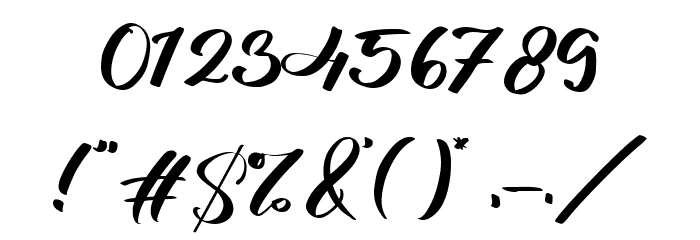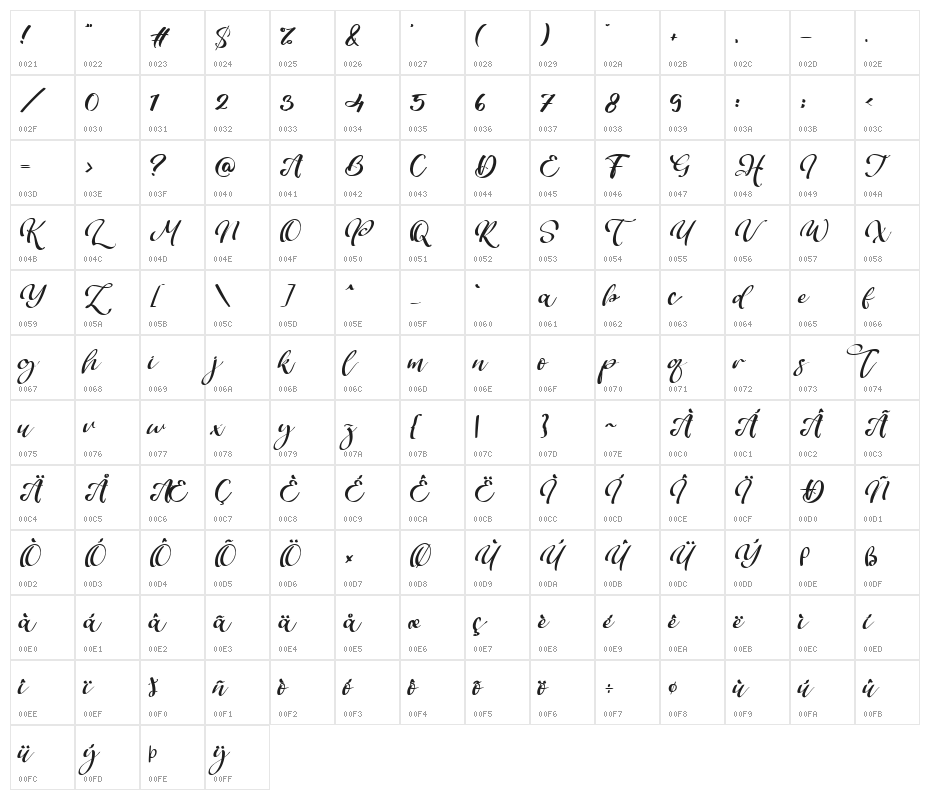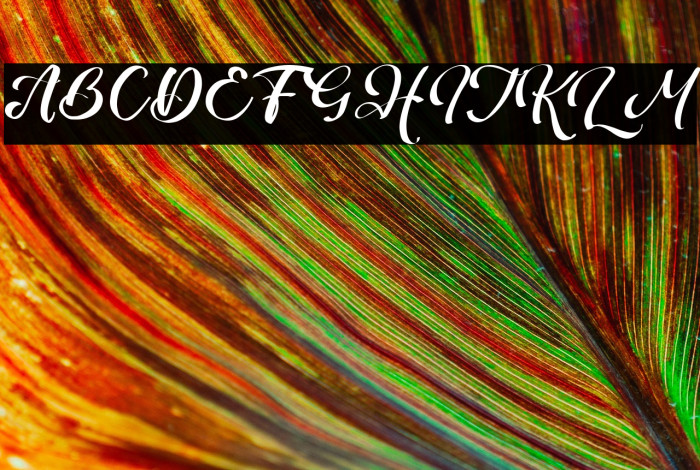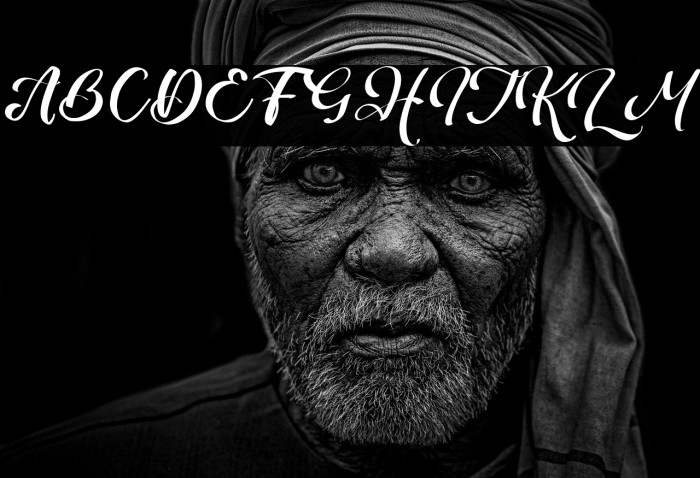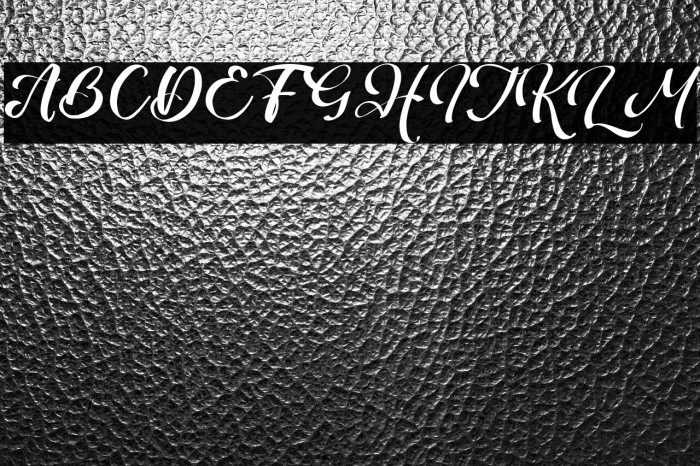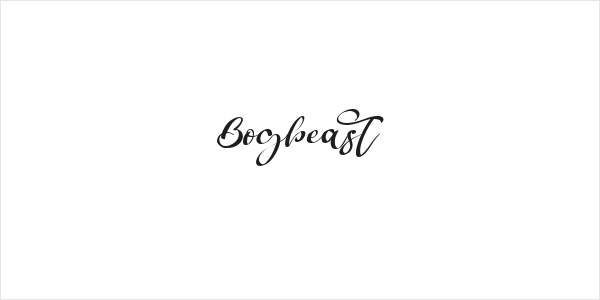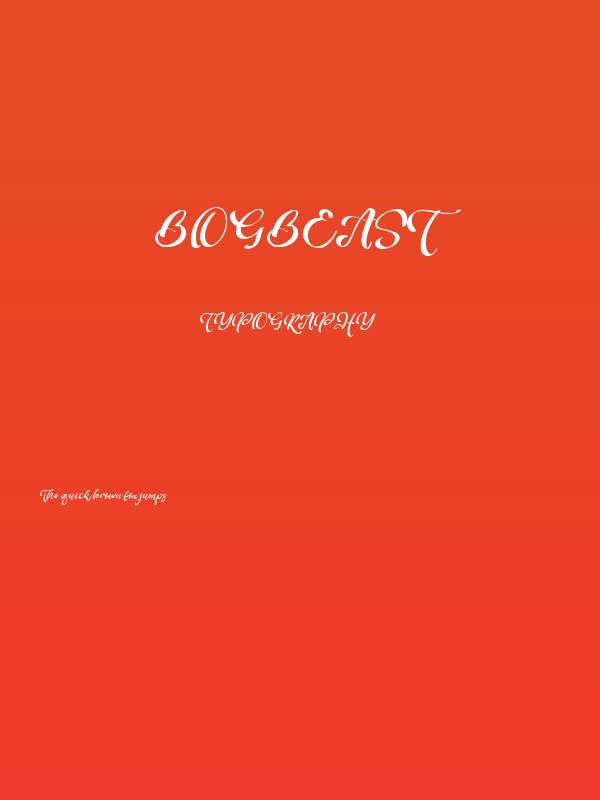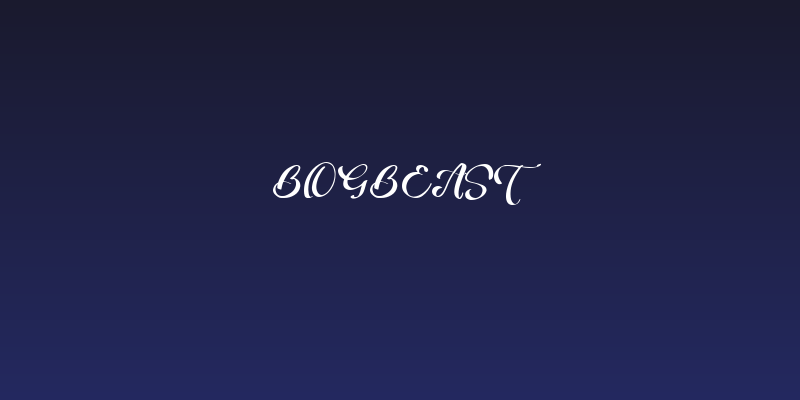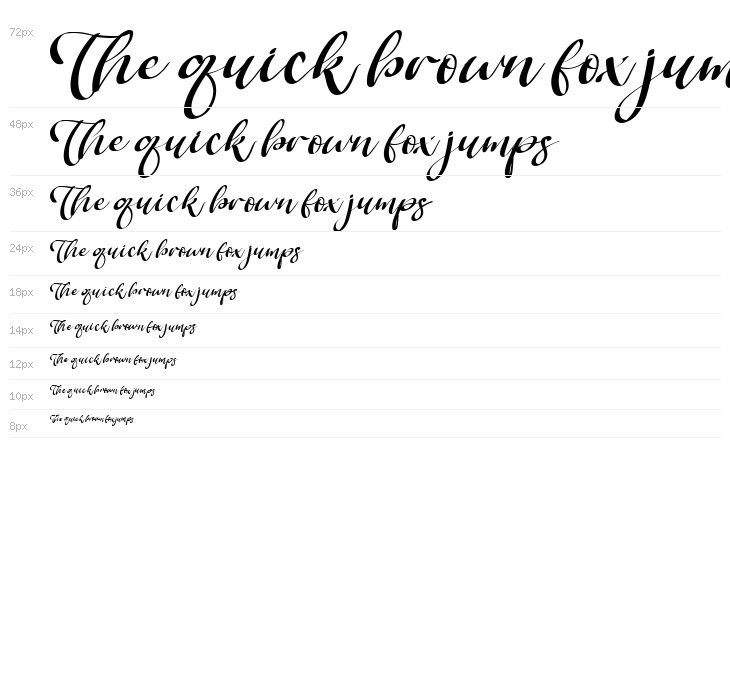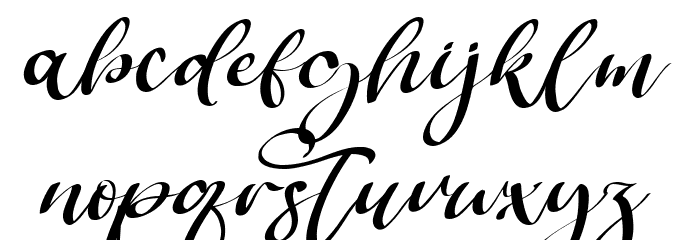
Bogbeast Font
Bogbeast Description
This elegant script font features a flowing, cursive style with a high degree of flourish and sophistication. The characters are interconnected, creating a seamless and fluid appearance. The uppercase letters are ornate, with sweeping curves and loops, while the lowercase letters maintain a consistent rhythm and balance. The numerals are designed to match the script's elegance, with a slight slant and decorative elements. Special characters are crafted with the same attention to detail, enhancing the font's overall cohesive look. The font's strokes vary in thickness, adding a dynamic and lively feel to the text.